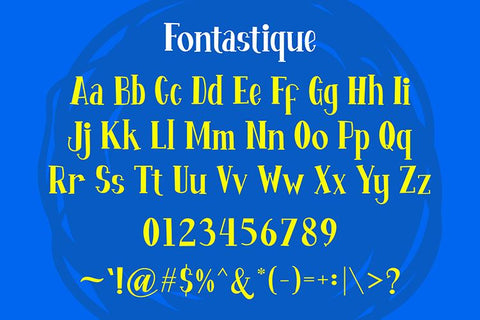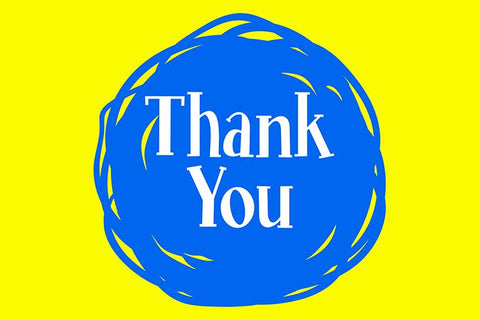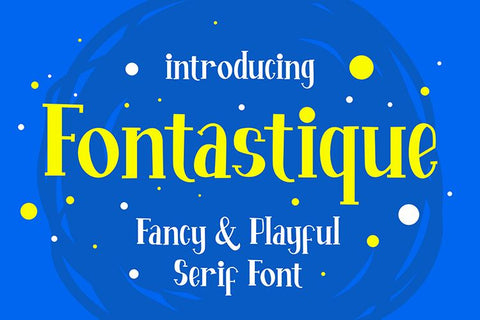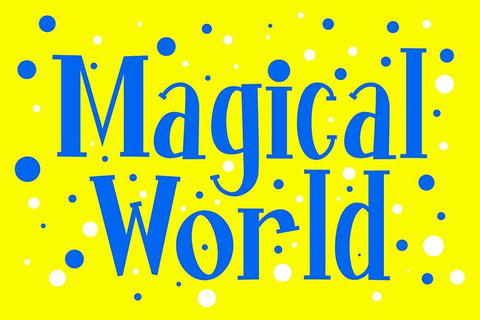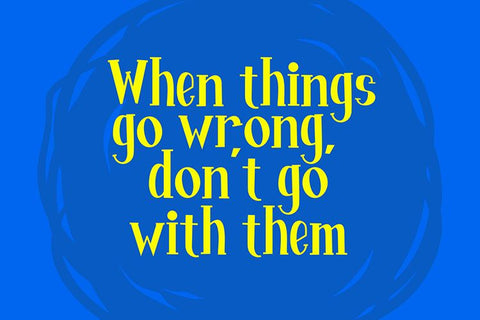
Fontastique - Playful Display Font
The Fontastique is fancy and playful serif font. It was inspired by the colors of the magical world.
The unique characteristics of Fontastique make it very suitable for various purposes such as quotes, t-shirt designs, flyers, youtube channels, labels, logos etc.